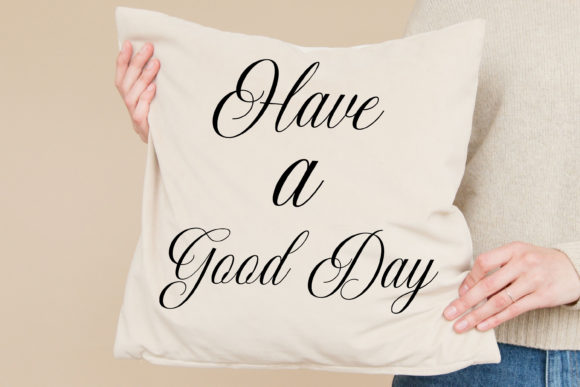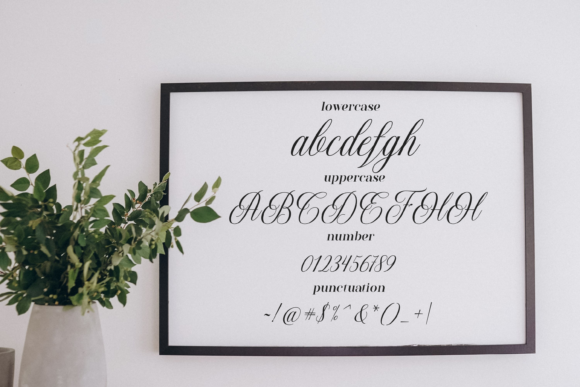
Marseline Font
db-ku.com - Script & Handwritten -- Marseline is a distinct, elegant and slim script font. It has a beautiful and balanced character, that fits well with the large design pool.